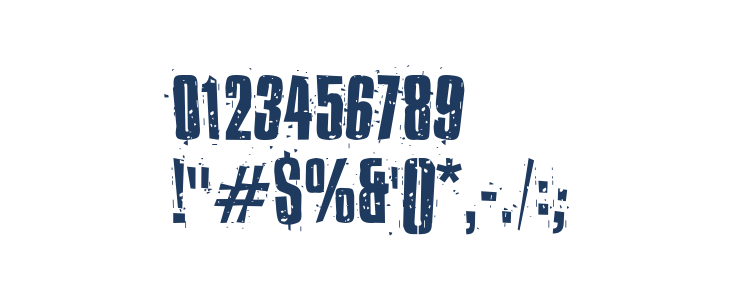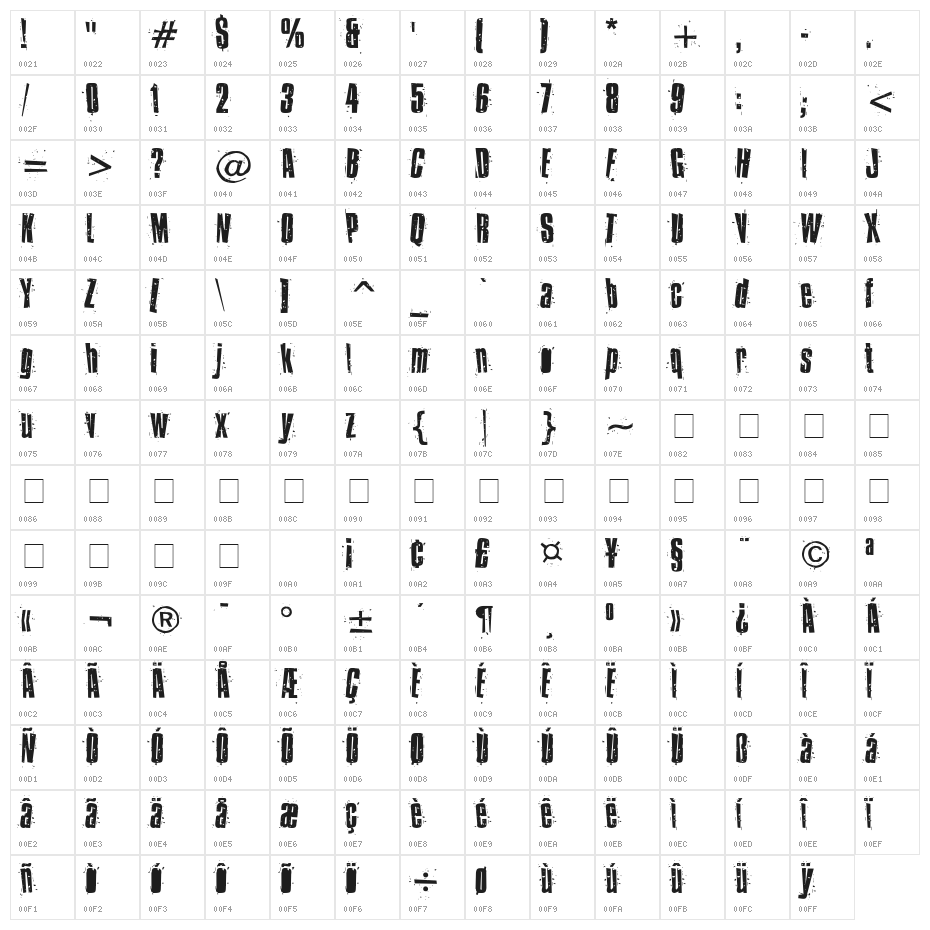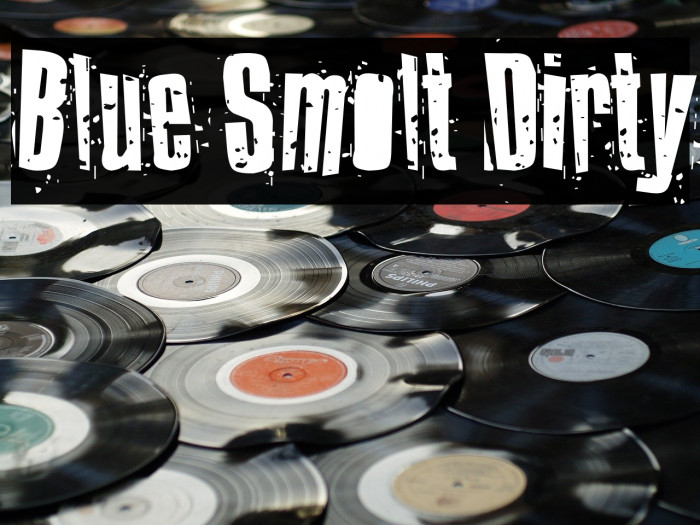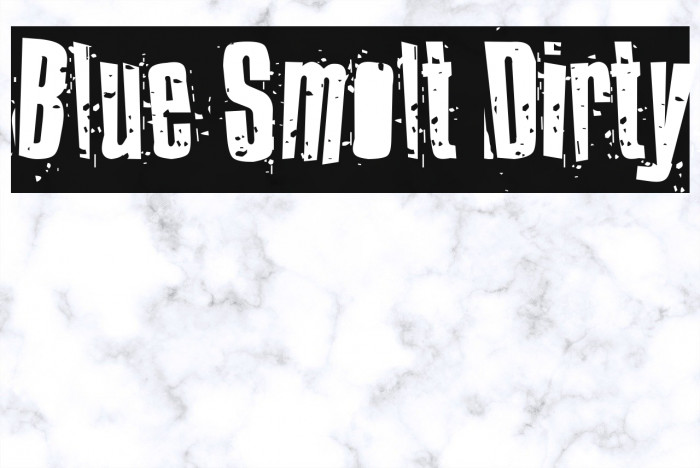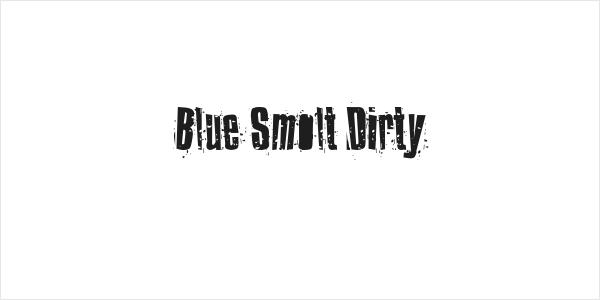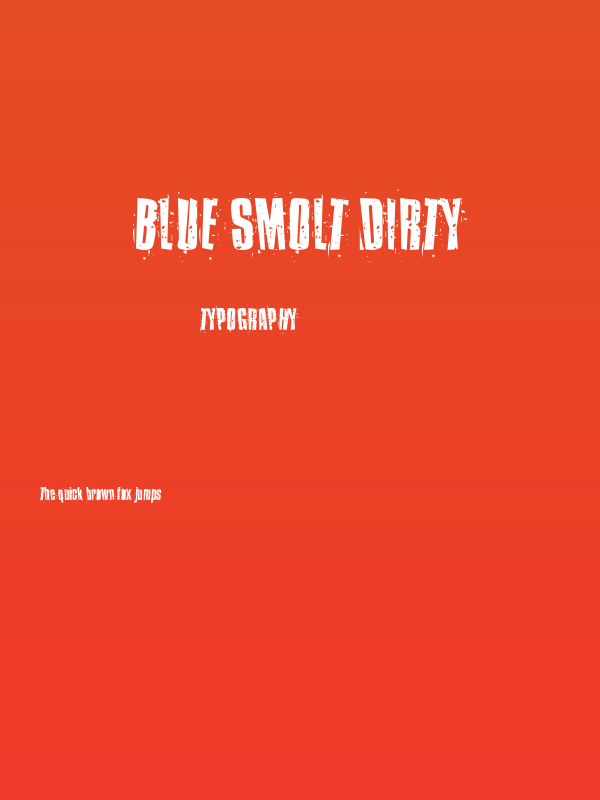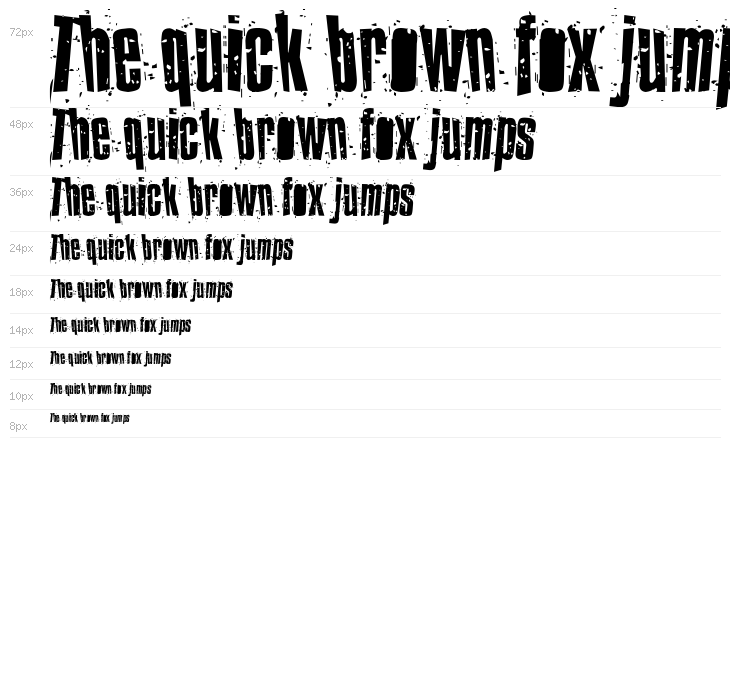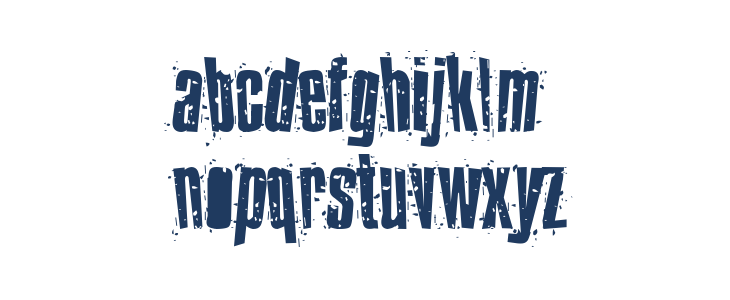
Blue Smolt Dirty Font
Blue Smolt Dirty Description
This font exhibits a bold and distressed style, characterized by its rough, textured appearance that gives it a grunge or urban feel. The letters are slightly irregular, with varying angles and a worn-out look, suggesting a sense of movement and energy. The uppercase and lowercase letters maintain a consistent style, with the uppercase being more prominent and impactful. Numbers and special characters follow the same distressed pattern, making them suitable for designs that require a rugged, edgy aesthetic. This font is ideal for projects that aim to convey a sense of rebellion, creativity, or a raw, unpolished vibe.
| Overall Style | Grunge, Urban, Edgy |
| Proposed Projects | Album covers, streetwear branding, event posters, graffiti art, and edgy marketing materials. |